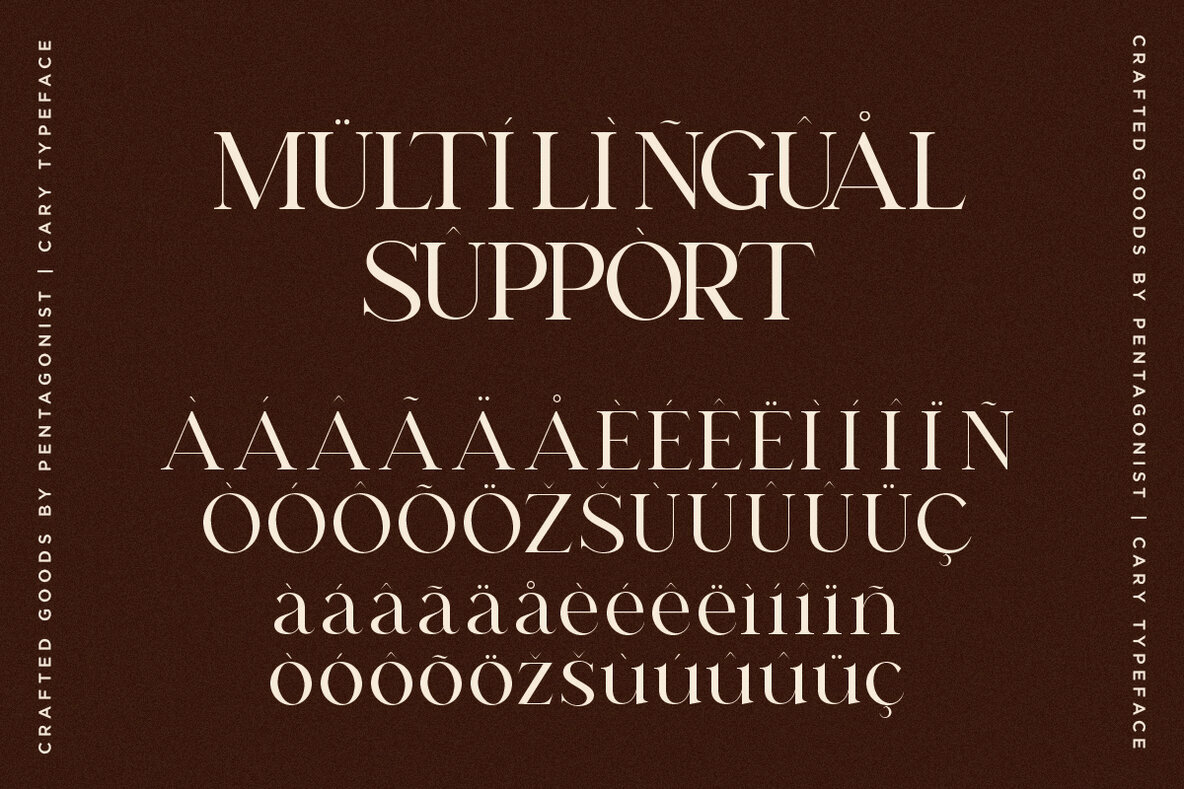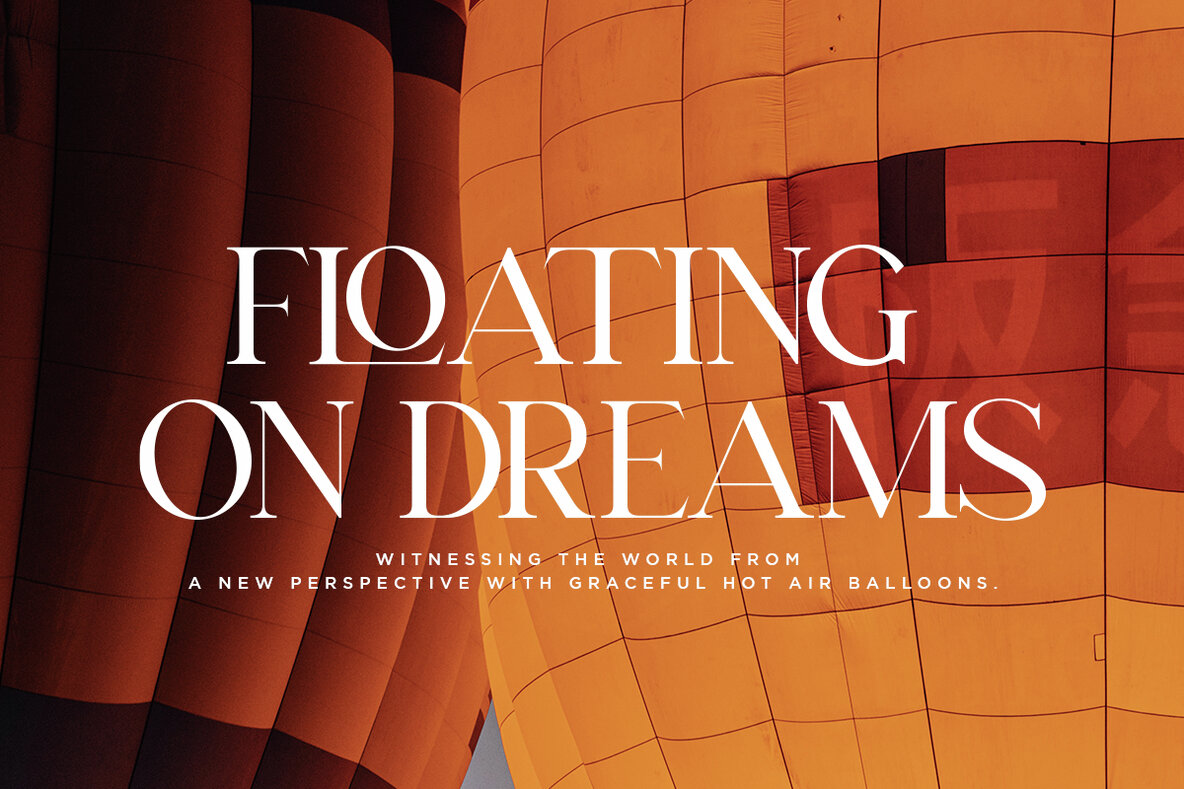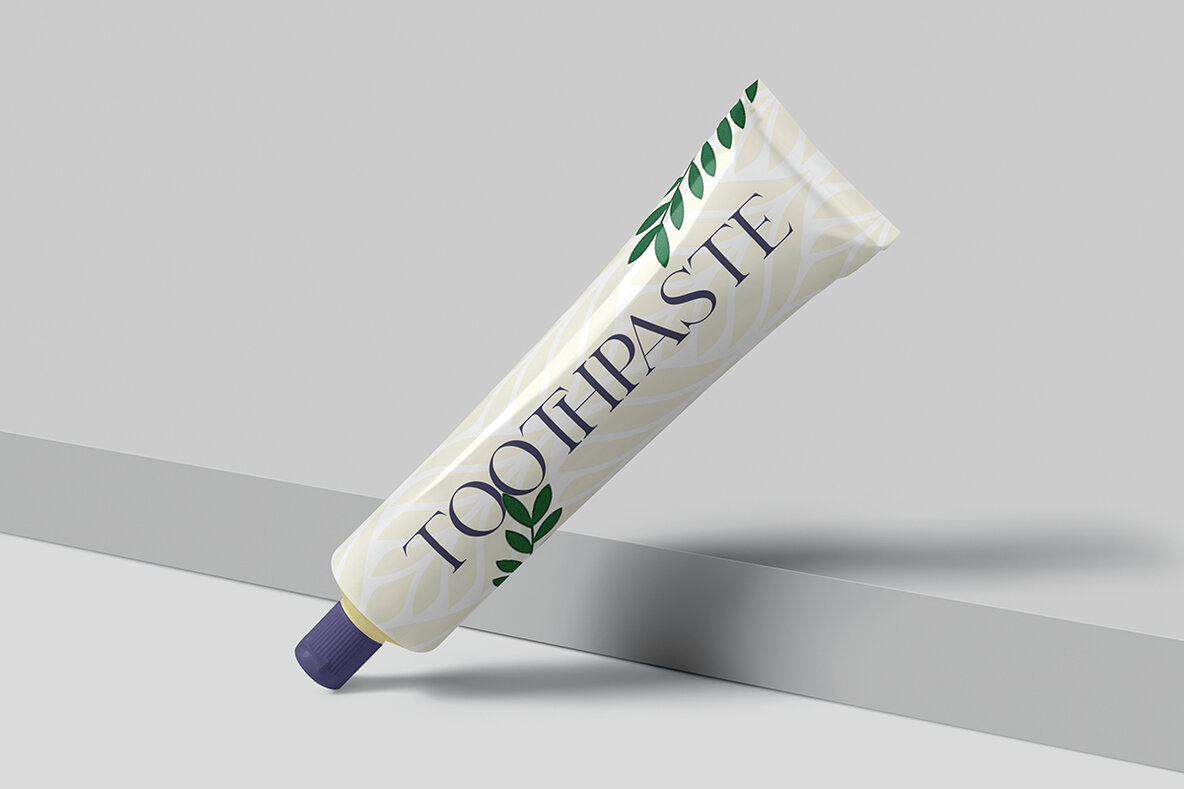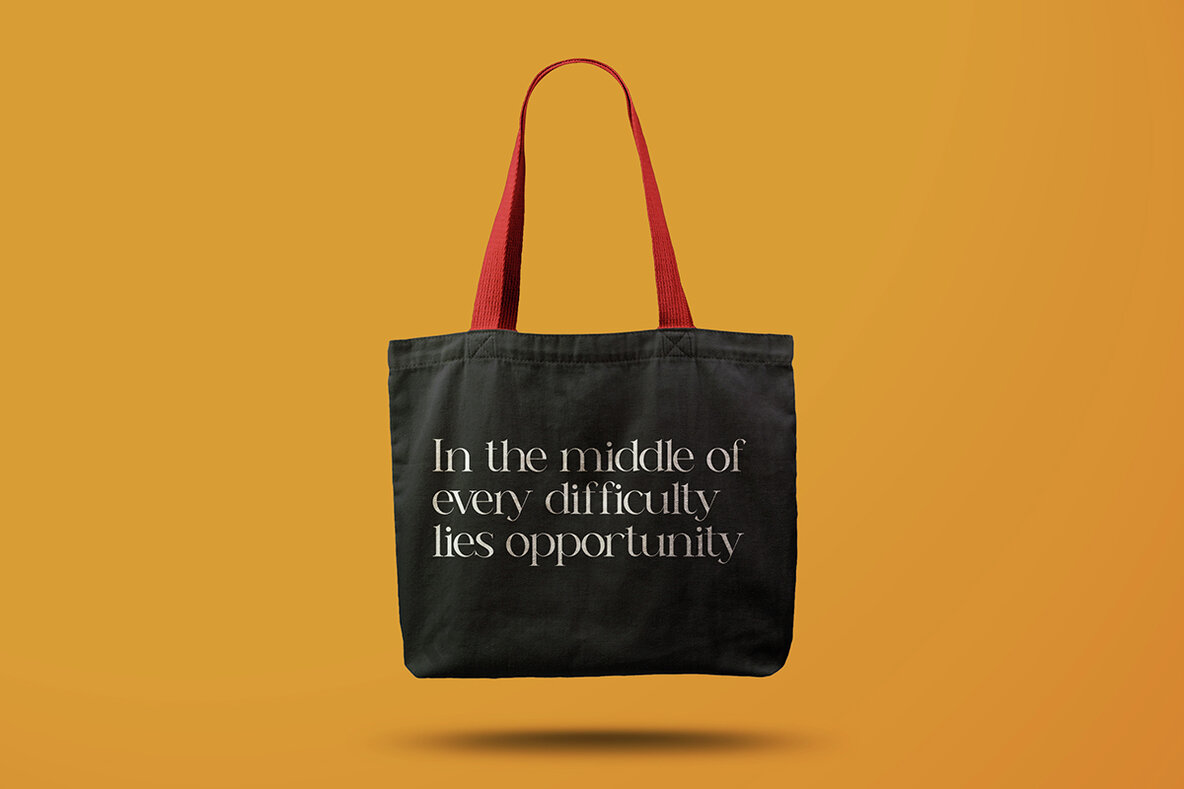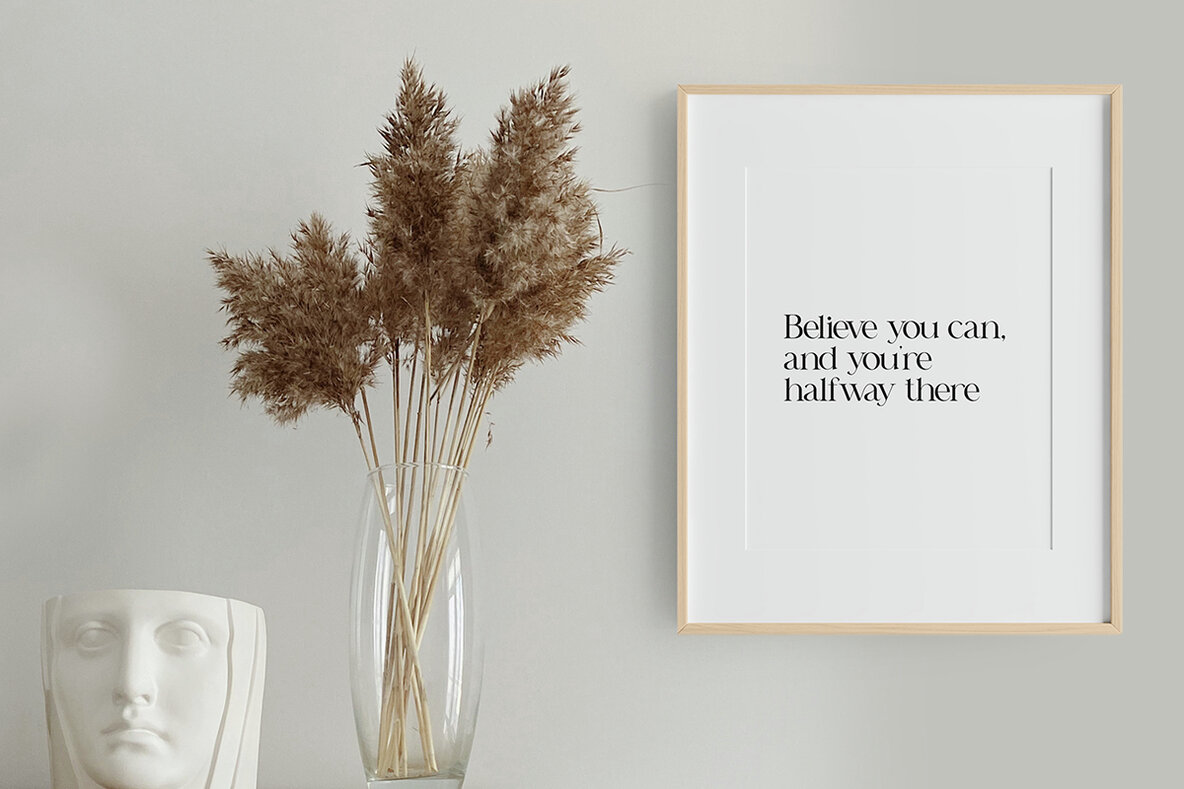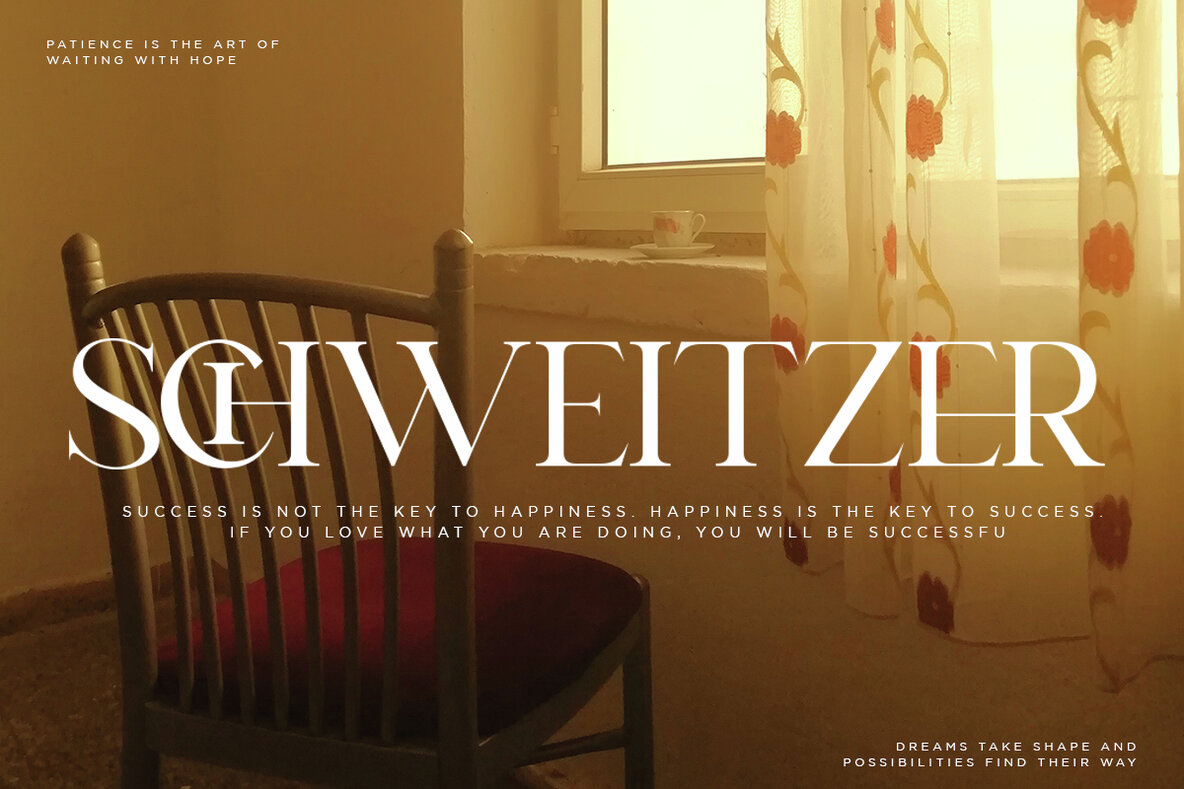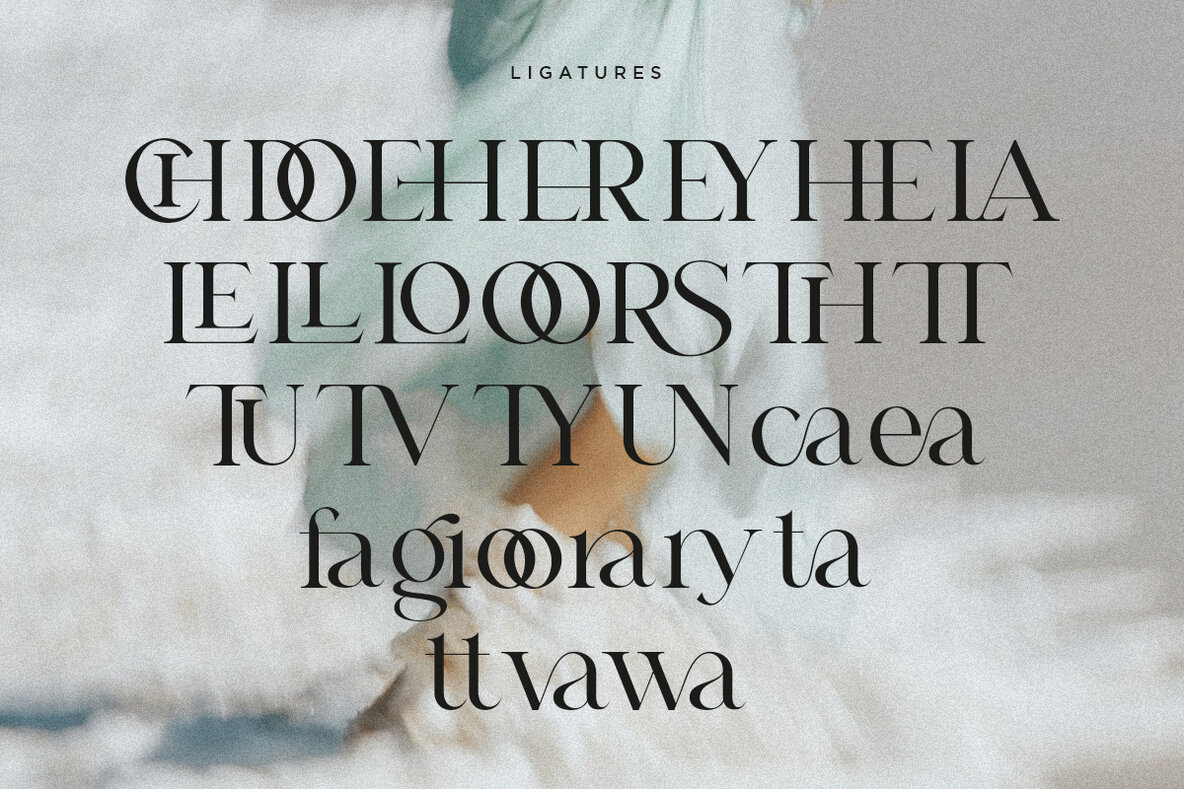
Cary Font
cary Regular
The Cary font offers a blend of elegance and versatility, making it an ideal choice for projects that require a touch of sophistication and classic design elements. Cary is available under a desktop license which permits installation on 1 user and up to 2 computers. It is not intended for broadcast, cinema, or motion picture use. Resale or embedding of the font in apps, games, or e-publications is prohibited without permission. For additional licensing options, please contact Pentagonistudio. No special software is required; Cary can be utilized in any basic software or web application that supports standard fonts. For ongoing updates, additional glyphs, and language support, follow Pentagonistudio. Feel free to reach out with requests or inquiries regarding specific language inclusion or other features.Cary: Classy Serif Font with Stylistic Alternates